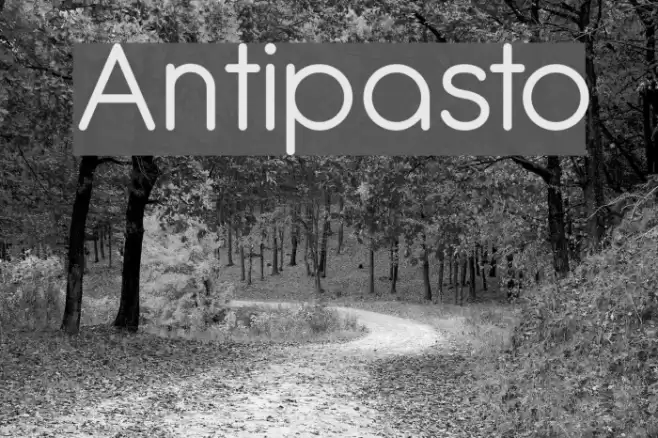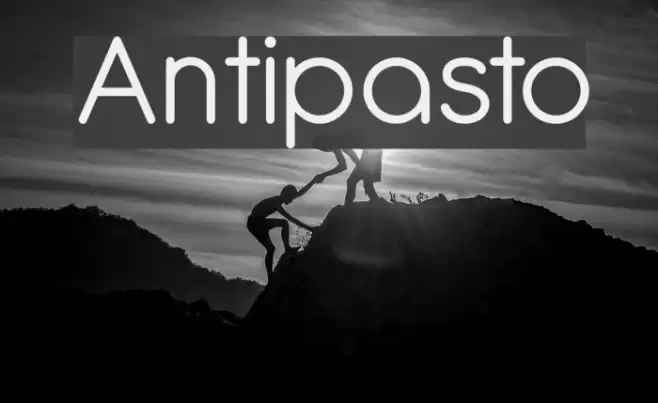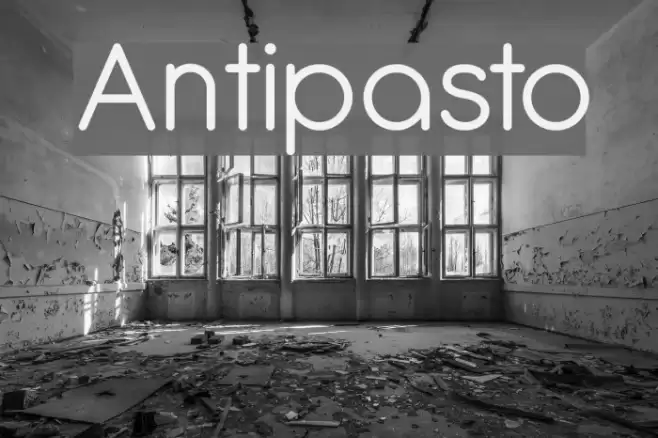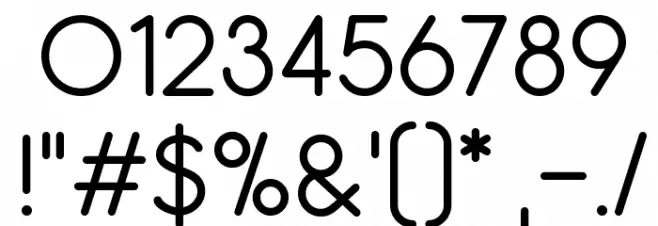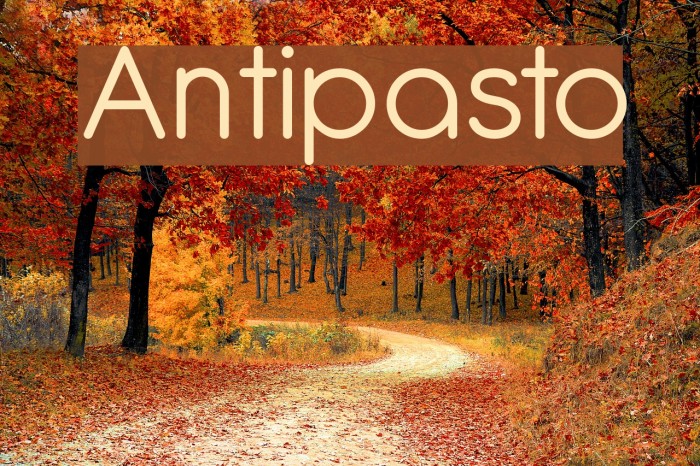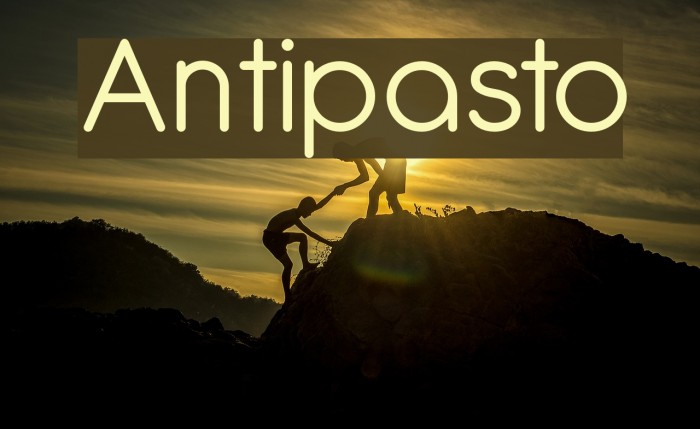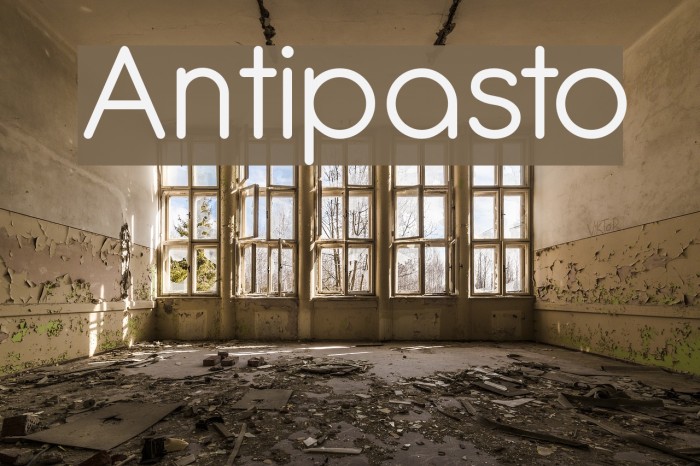
Antipasto Font
Antipasto Description
This font features a clean and modern sans-serif style with smooth, rounded edges and uniform stroke widths. The characters are evenly spaced, providing a balanced and harmonious appearance. The uppercase letters are bold and assertive, while the lowercase letters maintain a friendly and approachable look. The numerals are clear and easy to read, making them suitable for various applications. Special characters are designed with the same attention to detail, ensuring consistency across the entire character set. This font is versatile and can be used in a wide range of design projects.
A modern sans-serif font with rounded edges and uniform strokes from Sans Serif fonts.